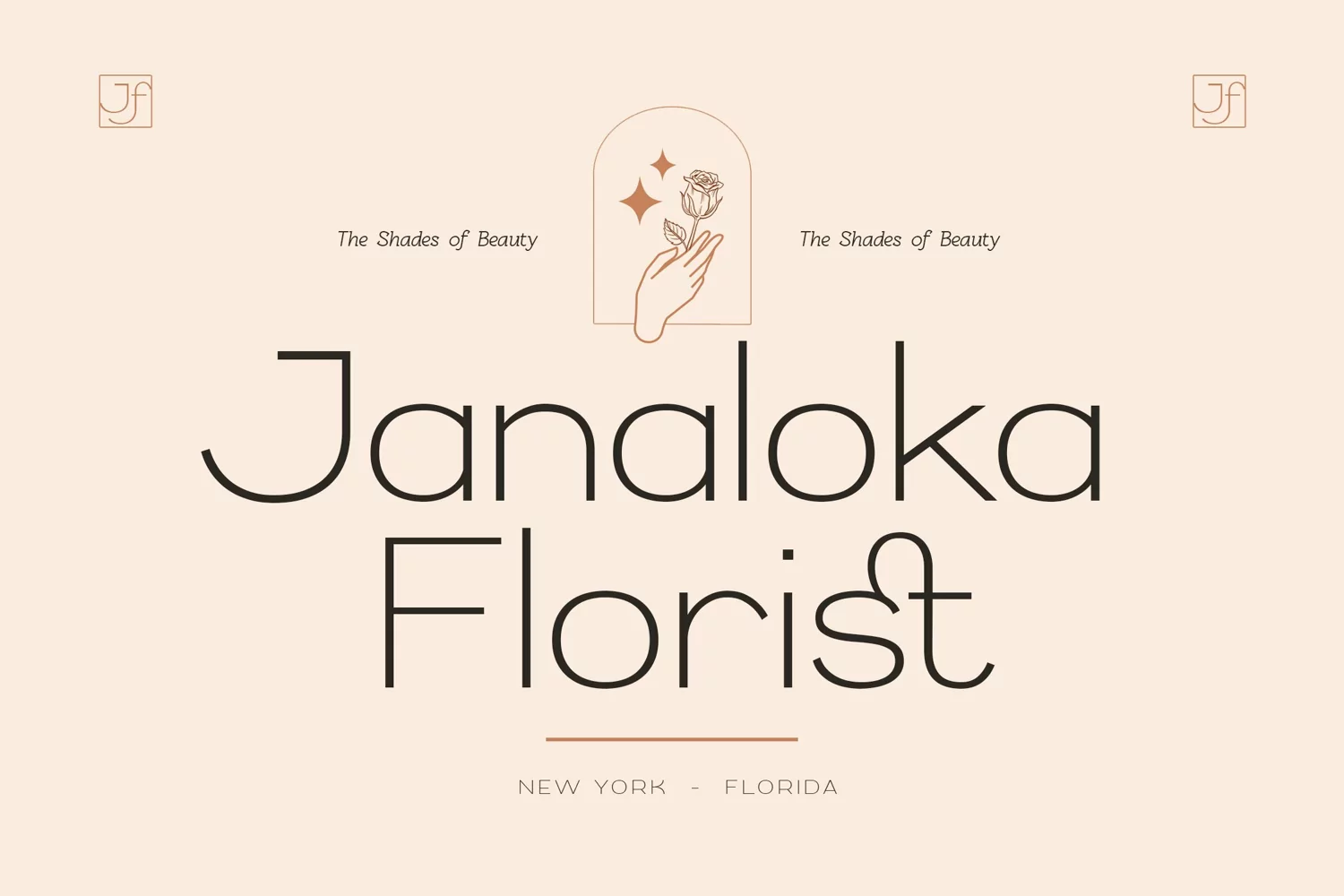
Restiany - Beauty Elegant Luxury Expanded Sans Serif - Classic Fancy Feminine Font
Restiany is perfect for your up coming projects. Such as beauty luxury logo and branding, classic editorial design, woman magazine, cosmetic brand, fashion promotional, art gallery branding, boutique branding, stationery design, blog design, modern advertising design, wedding card invitation, art quote, home decor, book/cover title, special events and any more.